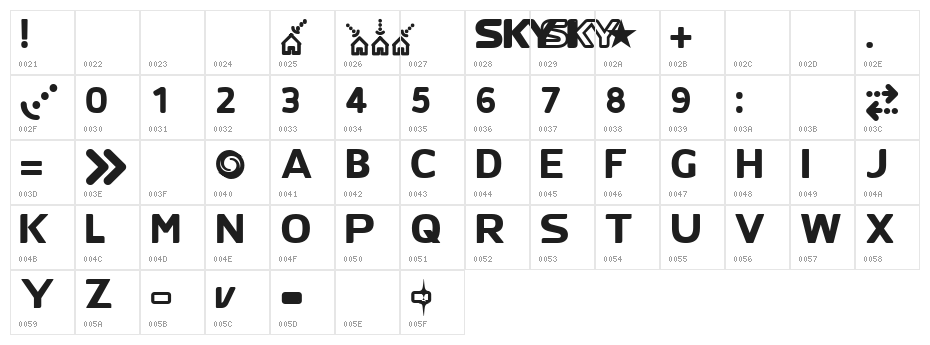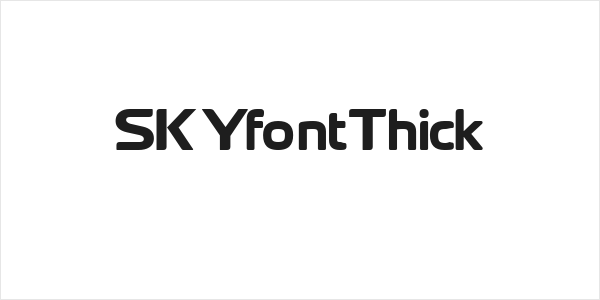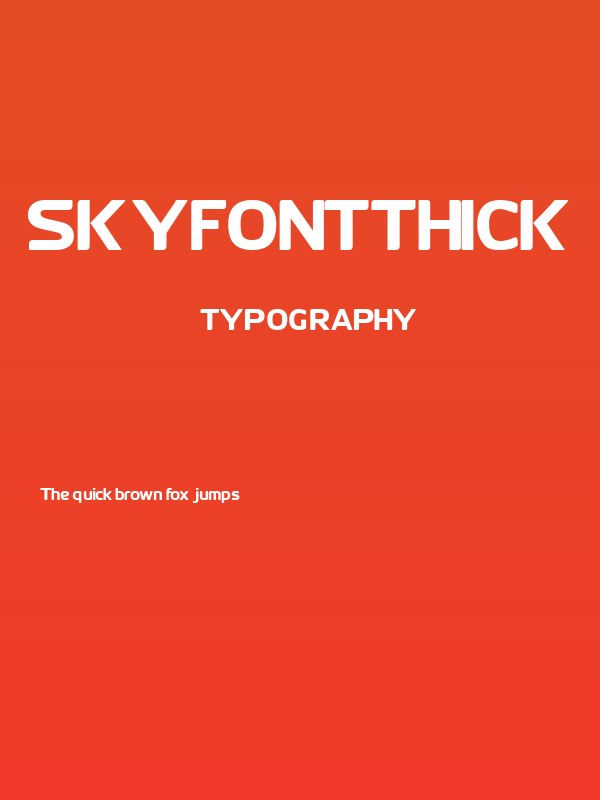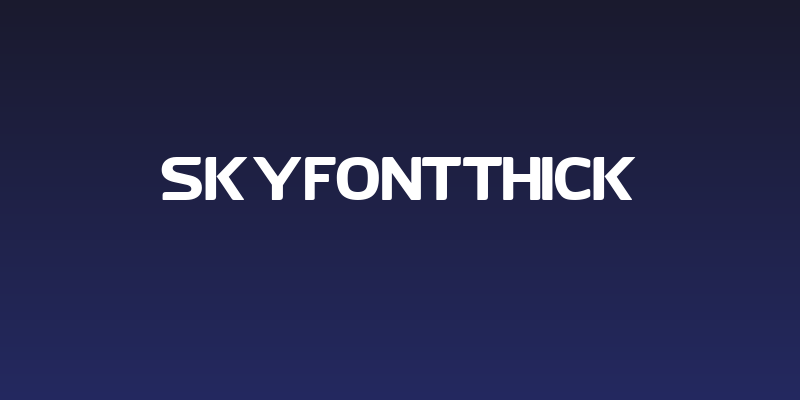
SKYfontThick Font
SKYfontThick Description
This font features a bold and rounded sans-serif style, characterized by its thick strokes and smooth curves. The uppercase letters are uniform in height, while the lowercase letters maintain a consistent x-height, contributing to a cohesive and balanced appearance. The numerals are clear and legible, matching the overall boldness of the alphabet. Special characters are designed with the same rounded and bold aesthetic, ensuring consistency across all glyphs. This font's modern and clean design makes it suitable for a variety of applications, offering both readability and a strong visual impact.
| Use Case | Headlines, Logos, Signage |
| Proposed Projects | Ideal for branding, signage, headlines, and digital media where a strong, modern presence is desired. |